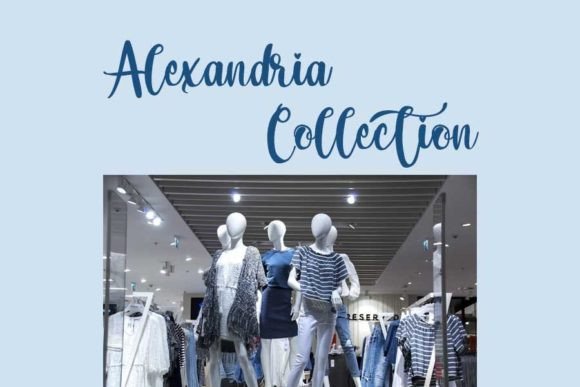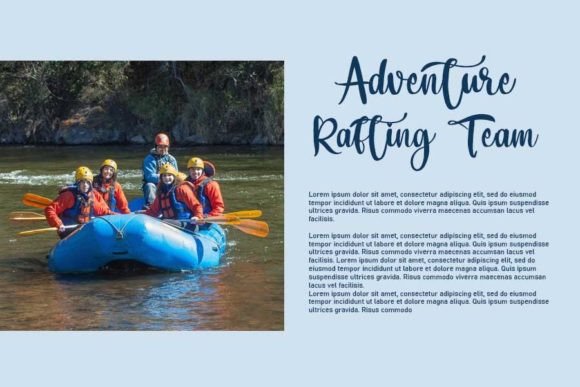
Wintersnow Calligraphy Font – Romantic and Sweet Typeface
The Wintersnow Calligraphy Font is a graceful and romantic script typeface designed to add beauty and personality to your projects. With its characters dancing along the baseline, it delivers a lively handwritten style. Whether used for wedding invitations, logos, or apparel designs, this font brings a soft and elegant touch.
A Calligraphy Script with Elegance
The Wintersnow Calligraphy Font combines flowing handwritten curves with professional clarity. Its casual strokes feel natural, while its refined style keeps it elegant. Because of this, it works equally well in formal branding and personal creative work.
Perfect for Weddings and Invitations
One of the best uses of the Wintersnow Calligraphy Font is in wedding invitations and romantic stationery. Its graceful style enhances thank-you cards, letters, and event signage. At the same time, it shines in logos, badges, and apparel projects, where it adds charm and personality.
Versatility Across Creative Projects
The Wintersnow Calligraphy Font adapts well to many applications. From posters and headlines to t-shirts and product labels, it brings a romantic handwritten touch. Its balance of playfulness and elegance ensures it stands out in both print and digital projects.
Why Designers Love Wintersnow Font
Designers love the Wintersnow CalligraphyFont for its unique mix of charm and usability. It is stylish enough for decorative projects yet clear enough for practical uses. This combination makes it a reliable choice for creative professionals and hobbyists alike.
In summary, the Wintersnow CalligraphyFont is a romantic, sweet, and versatile script typeface. With its elegant handwritten strokes, smooth installation, and wide usability, it is perfect for weddings, branding, apparel, and creative projects. Don’t miss the chance to download Wintersnow CalligraphyFont and bring timeless elegance to your designs.